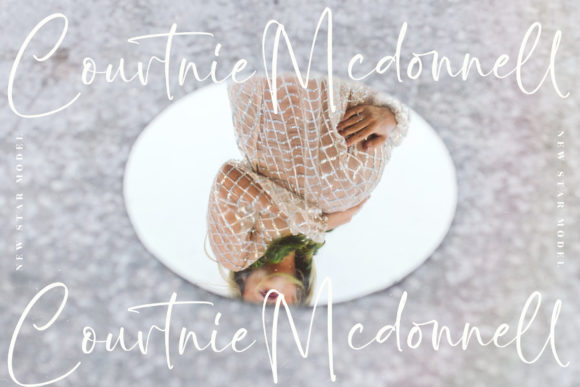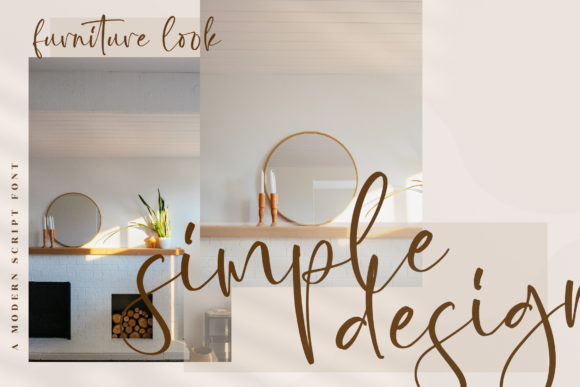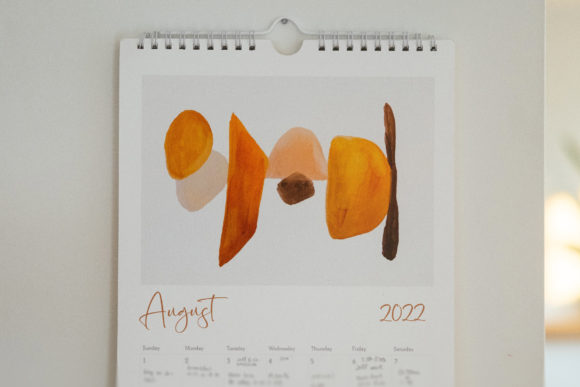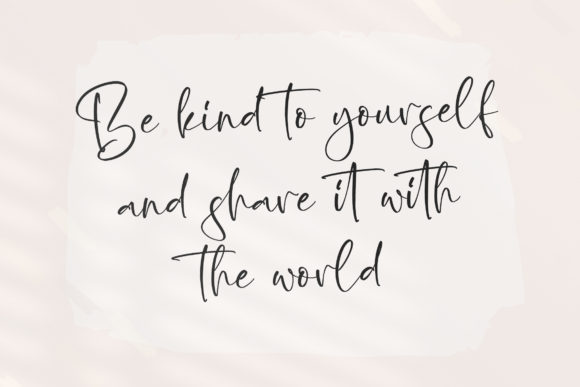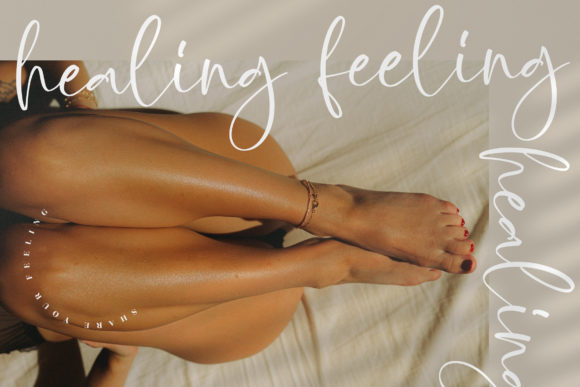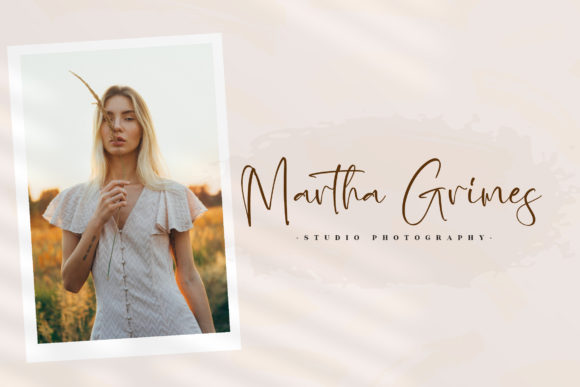
Introduction to John Smith Font
Imagine you’re working on a creative project, and you’re struggling to find the perfect font to capture the essence of your design. You’ve tried countless options, but nothing seems to stand out. That’s when you stumble upon the John Smith Font – a stylish and dainty script font that adds a touch of elegance to any project.
For designers, having access to high-quality design resources like the John Smith Font can be a game-changer. Not only does it save time, but it also helps to elevate the overall aesthetic of a project. Whether you’re working on a logo, branding project, or special event, this font is sure to impress. Plus, with its PUA-encoded features, you can easily access all the glyphs and swashes to create a truly unique look.
Key Features of John Smith Font
- High-quality, professional font design ideal for creative projects and design resources.
- Designed with a modern aesthetic, making it perfect for use in business presentations, marketing materials, and more.
- Unique characteristic: The font’s subtle texture and nuanced line work give it a distinctive, handcrafted feel.
Honest Review: John Smith Font
One of the standout features of this font is its high quality and versatility. It comes in a variety of styles and weights, making it perfect for creative projects where a consistent look is essential.
- High-quality design with crisp and clear lines.
- Transparent background, making it easy to use on any design project.
- A wide range of styles and weights to choose from.
- May not be suitable for projects requiring a more formal or traditional look.
- Lack of extensive language support, which may be a limitation for designers working with non-English texts.
Overall, the John Smith Font is a solid choice for designers looking for a free, high-quality font. While it may have some limitations, its versatility and wide range of styles make it a valuable design resource. I’d definitely recommend giving it a try for your next creative project.
To get the most out of the John Smith Font, experiment with different font sizes, colors, and styles. Use the font in combination with other design resources to create a unique and eye-catching design.
The John Smith Font is ideal for creative projects such as logos, brochures, and social media graphics. It is also suitable for use in presentations, reports, and other business documents.